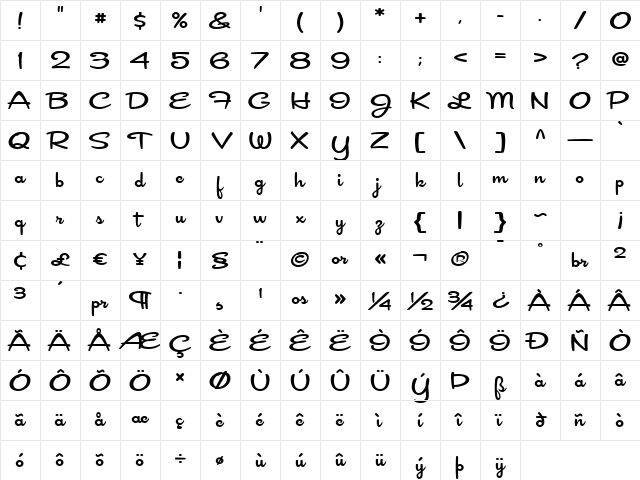
Cocktail Shaker Medium
Foundry: Font Diner
Designer: Stuart Sandler
Design Context for Cocktail Shaker
Cocktail Shaker is a composed and adaptable typeface that performs quietly and consistently across a wide range of design contexts.
Who designed the Cocktail Shaker Medium font?